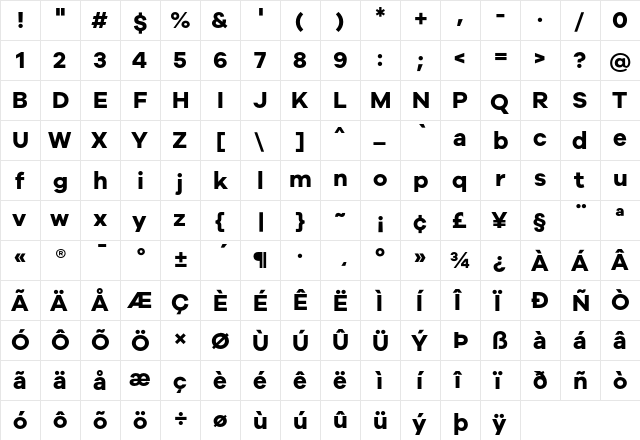
Galyon Bold Bold
| Foundry | WOLVE |
| Designer | WOLVE |
Design Context for Galyon Bold Typeface
Galyon Bold takes a measured approach to typography — its balanced proportions and neutral character make it a reliable workhorse for both digital and print work. The heavy weight commands attention and anchors typographic hierarchies.